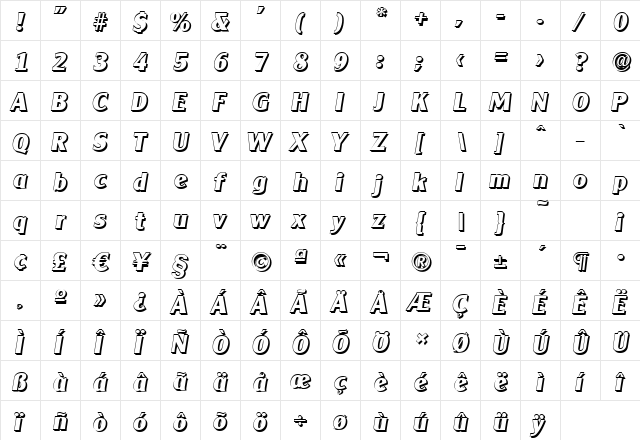
AlexanderBeckerShadow-ExBold Italic Font Preview
Design Context for AlexanderBeckerShadow-ExBold Typeface
AlexanderBeckerShadow-ExBold is built around its visual character rather than neutral utility — its distinctive forms are designed to make an impression at display sizes. The dynamic lean of this cut emphasises speed and emphasis in any layout. The heavy weight commands attention and anchors typographic hierarchies.
Font Pairing: Pair with a clean neutral sans-serif for body copy to let AlexanderBeckerShadow-ExBold's character lead without overwhelming the composition.
Pro Tip: Use AlexanderBeckerShadow-ExBold exclusively at display sizes — it was designed to be seen, not read at length. Let a neutral companion handle body copy.